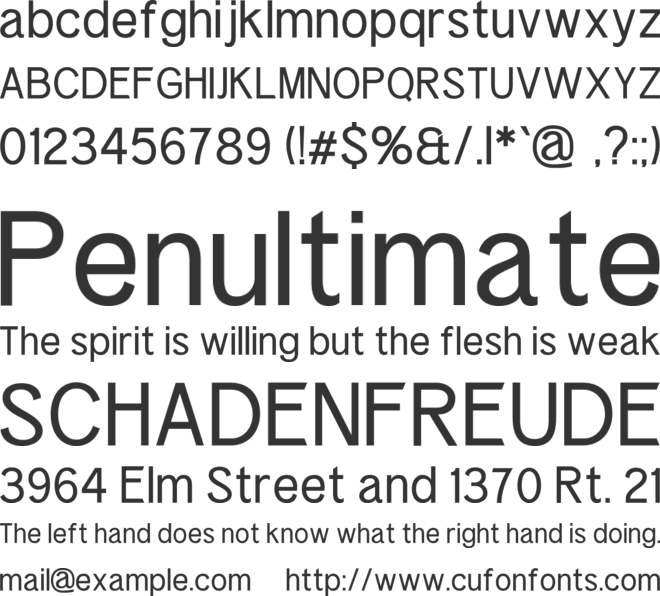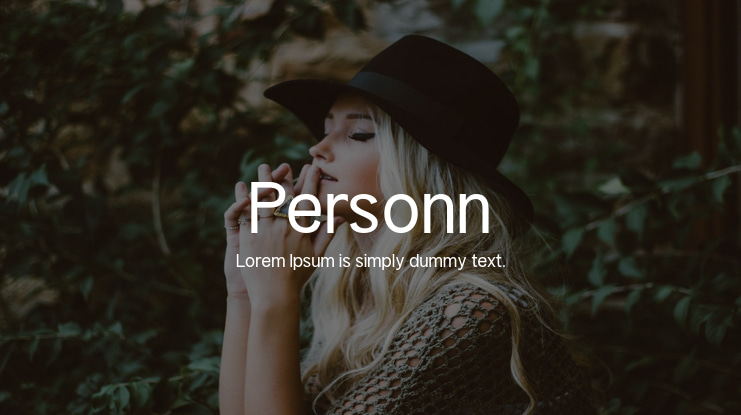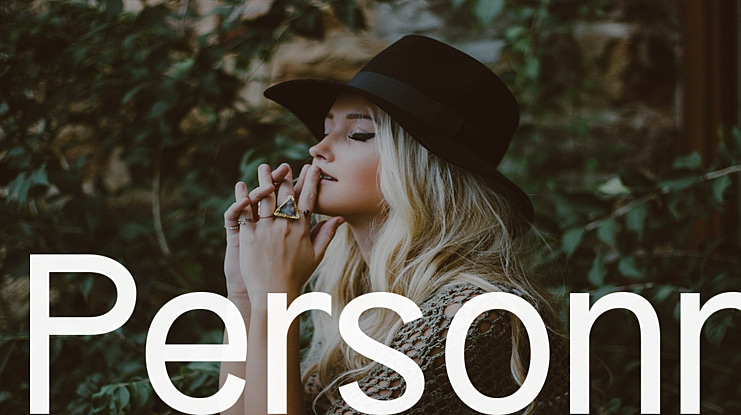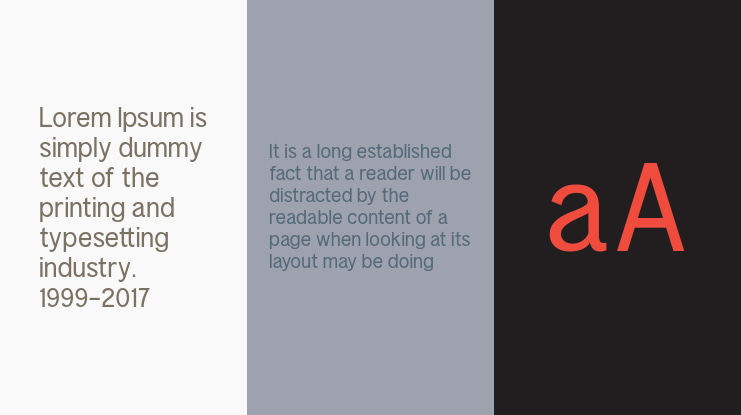
Personn Font Family
Personn is the most basic font you could ask for, with a little bit of uniqueness dropped in. It's primarily based off of the fonts Venus and Monotype Grotesque. It's quite the looker in terms of style, and should look great on the printed page. I made it because I was in need of a text font to compliment Lowball, and this is what I came up with.